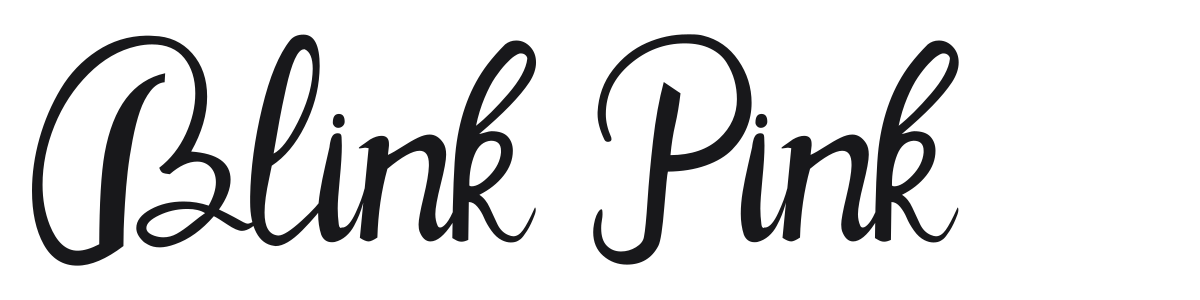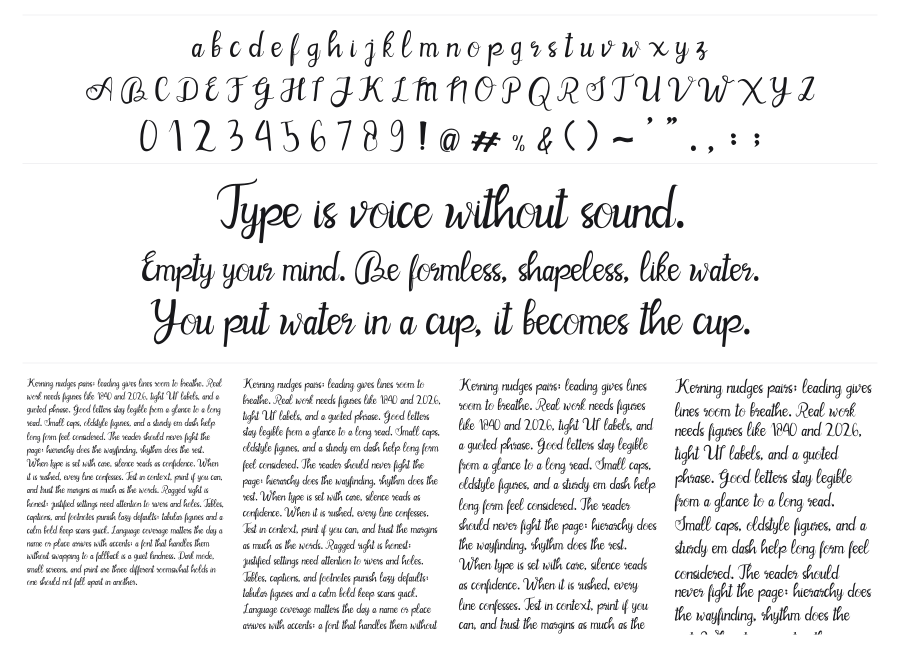
Blink Pink
Blink Pink is a casual connected script with a lively, bouncing energy and fluid strokes that feel handwritten but polished. The moderate stroke contrast and generous loops give it a warm, contemporary femininity. It works well at large sizes for logos, packaging, and social media graphics.